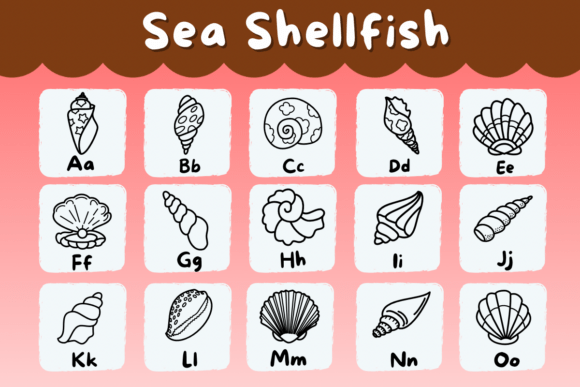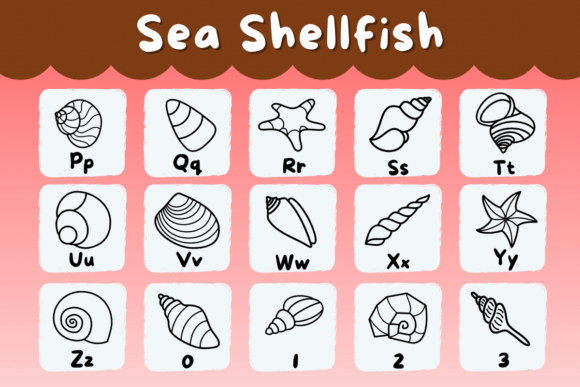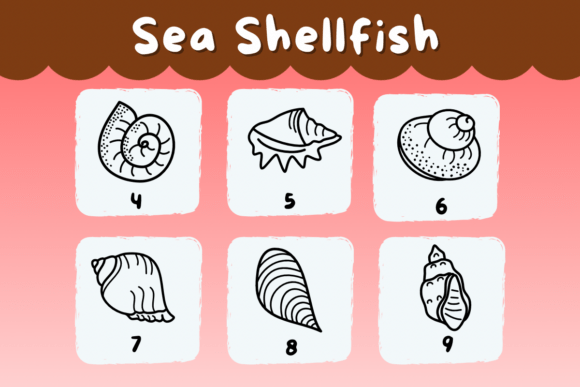
Introduction to Sea Shellfish Font
Sea Shellfish is a beach-themed dingbat font showcasing hand-drawn seashells and ocean treasures.
Great for summer projects, kids’ activities, nautical branding, or seaside scrapbooking .